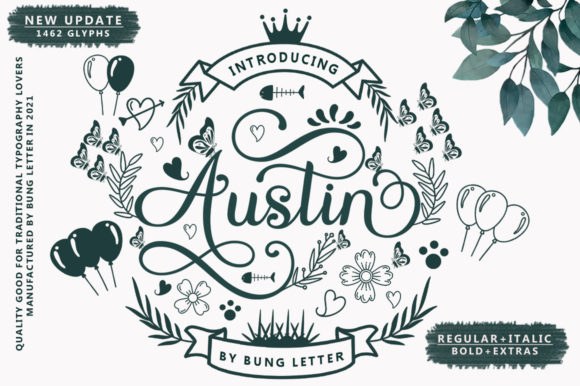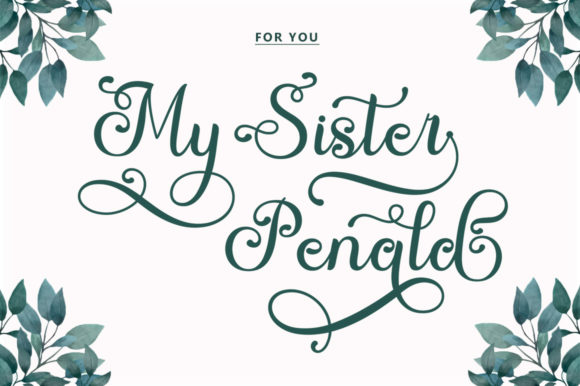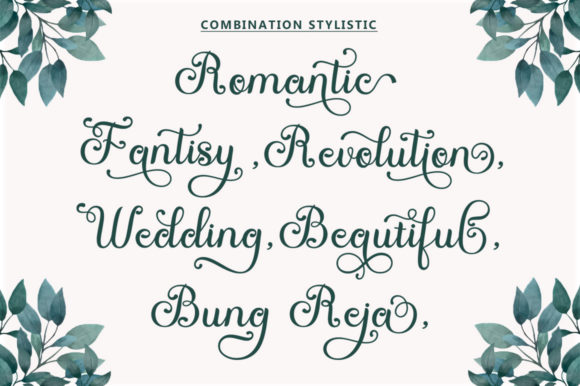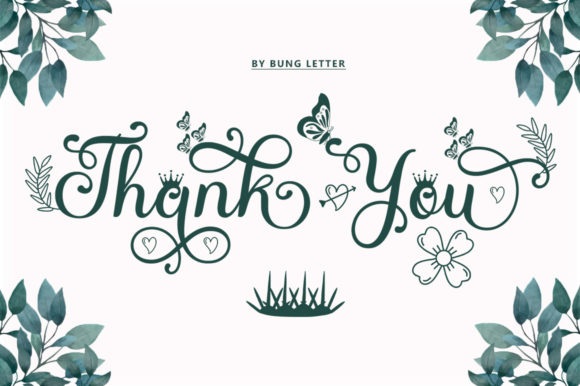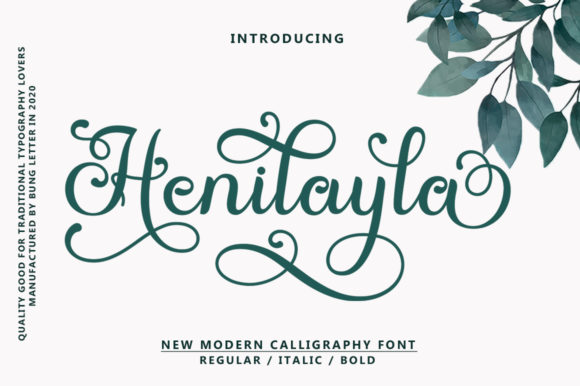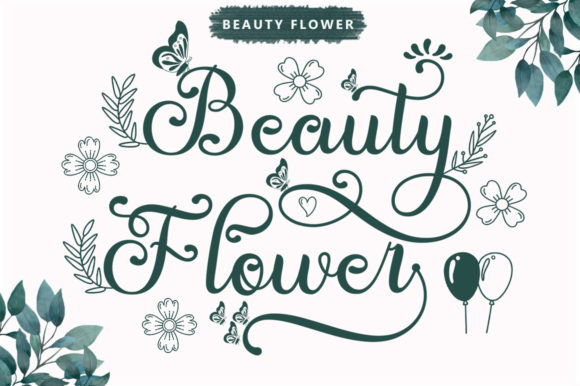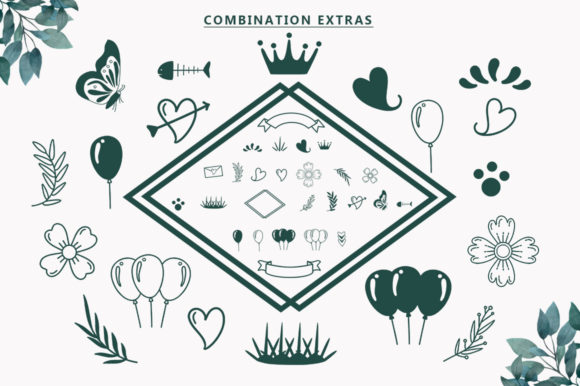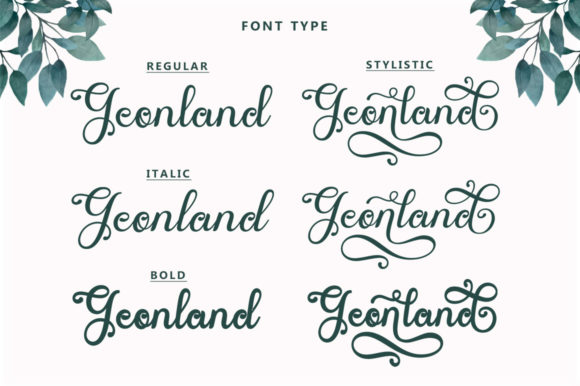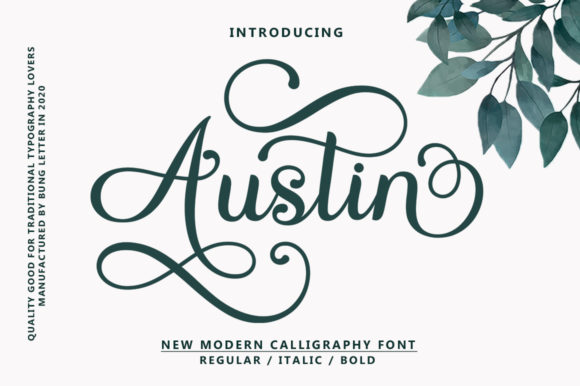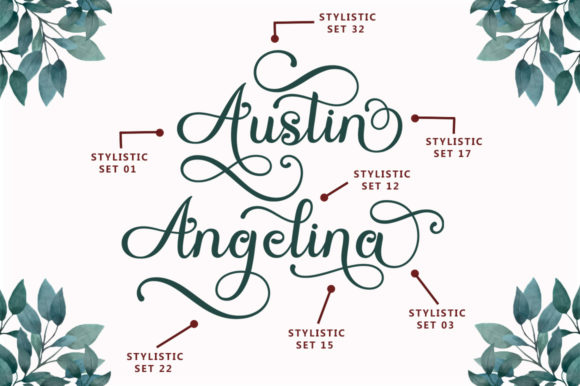
Austin Font
About Austin Font
Austin Script is a beautiful modern calligraphy script font that comes with stunning swashes. With this font, you can add an elegant touch to all your craft projects!